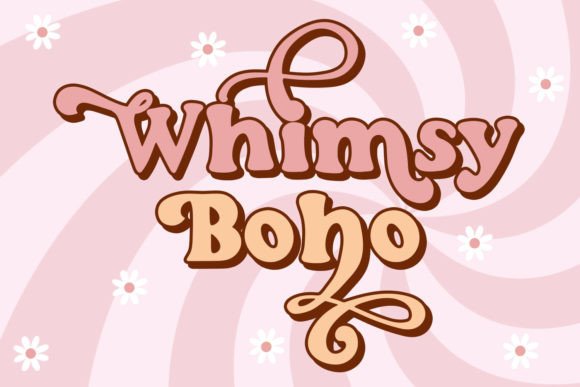
Whimsy Boho: A Handwritten Display Font for Authentic Handmade Charm
I was halfway through designing a new batch of soy candle labels—amber glass jars, kraft paper tags, dried lavender sprigs taped beside the scent names—when I paused. The clean sans serif I’d been using felt too crisp, too clinical. It didn’t whisper “slow living” or “hand-poured with care.” It whispered “warehouse.” That’s when I opened Whimsy Boho.
From the first keystroke, it felt like picking up a favorite ink pen—the kind with just the right nib resistance and a slight wobble that makes every letter feel human. Whimsy Boho is a handwritten retro font built for display use: expressive, slightly uneven, full of warmth and intentional imperfection. Think 1970s apothecary signage meets modern cottagecore—curling ascenders, soft entry/exit strokes, and that gentle, organic rhythm only true handwritten fonts capture.
What makes it especially useful for makers? Its stylistic alternates. A single word like “Wildflower” can shift personality instantly: swap the default ‘W’ for a swash version to anchor a greeting card header, or choose a looser ‘o’ to soften a boutique tag. These aren’t gimmicks—they’re subtle tools for refining tone without switching fonts.
I tested Whimsy Boho across real product contexts:
It’s not a body text font—and that’s by design. Whimsy Boho shines where attention matters: titles, names, short phrases, packaging accents, and social media graphics. Trying to set a full invitation paragraph in it would overwhelm. But “Est. 2023” on a shop tag? Perfect. “Cozy Hours Only” on a ceramic mug? Exactly right. Its strength is emotional resonance—not legibility over distance, but intimacy at close range.
Pairing is intuitive. I often layer Whimsy Boho with a warm, low-contrast sans serif—think Poppins or Lato—for balance. When designing wedding stationery, I’ve paired it with a delicate serif like Playfair Display for elegant contrast. Never pair it with another script or handwritten font unless you’re intentionally creating layered texture (e.g., Whimsy Boho for the couple’s names + a fine-line script for “&” and date). Simplicity keeps the focus on the handmade feeling—not font gymnastics.
One quiet win? Shop branding consistency. Using Whimsy Boho for my product labels, then echoing its rhythm in Instagram story highlights and listing banners, created cohesion without repetition. Customers began recognizing that soft, looping ‘g’ or tilted ‘e’ as part of the experience—not just typography, but tone.
It’s easy to overlook how much a display font contributes to perceived quality. A well-chosen typeface tells people *how* to feel before they read a word: relaxed, nostalgic, thoughtful, joyful. Whimsy Boho doesn’t shout—it invites. It doesn’t polish away personality; it leans into it. That’s why it works on a farmhouse sign nailed to reclaimed wood just as well as it does on a digital download preview thumbnail.
If you're choosing fonts for handmade goods, ask yourself: does this reflect the hands behind the product? Does it honor the time, texture, and intention in what you make? With Whimsy Boho, the answer feels like a slow exhale—and a nod to the quiet magic of getting the details just right.